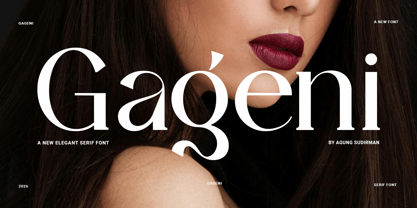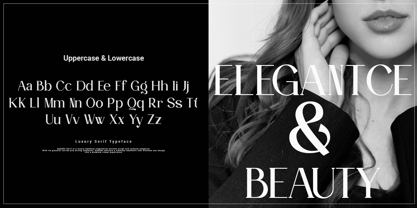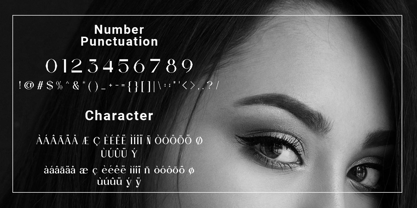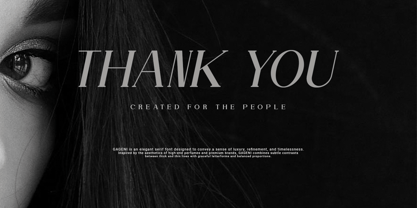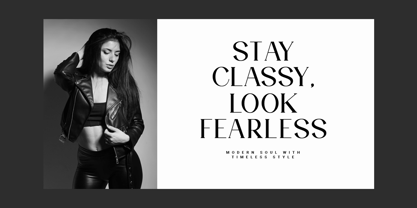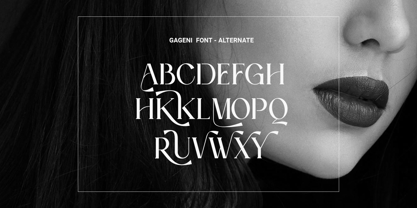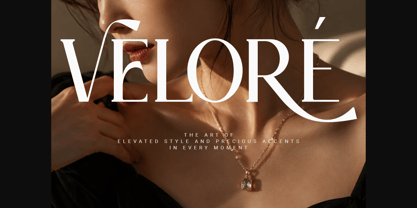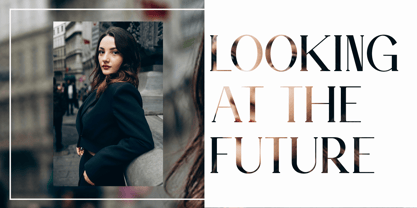
Gageni
by Agung Sudirman
The Gageni Font Family was designed by Agung Sudirman and published by Agung Sudirman. Gageni contains 2 styles and family package options. More about this family
Gageni Serif is a modern luxury display typeface crafted with a perfect balance between timeless elegance and contemporary sophistication, designed to deliver a strong visual identity for creative projects that demand beauty, refinement, and exclusivity. Inspired by classic serif traditions and modern editorial aesthetics, Gageni Serif combines graceful curves, sharp contrast strokes, stylish ligatures, and carefully crafted letterforms that create a premium and fashionable appearance in every composition. This typeface is created for designers, branding specialists, fashion creators, and visual artists who want to build an elegant atmosphere while maintaining readability and artistic character. Every letter in Gageni Serif reflects confidence, beauty, and professionalism, making it suitable for luxury branding, logo design, magazine headlines, fashion editorials, cosmetic packaging, jewelry advertisements, social media content, wedding invitations, photography watermarks, boutique identities, and premium marketing materials.
The uniqueness of Gageni Serif lies in its sophisticated details and harmonious proportions that allow each character to feel refined yet expressive. The font features elegant uppercase and lowercase styles, modern serif structures, smooth curves, and aesthetic ligatures that add personality and exclusivity to the typography. These characteristics make the font highly versatile for both minimal and decorative layouts, allowing designers to create visually appealing compositions with ease. Gageni Serif is not only a typeface but also a visual statement that communicates luxury, confidence, femininity, and modern creativity. Its elegant presence can transform ordinary text into an artistic centerpiece that captures attention and enhances brand value instantly.
Designed with precision and attention to detail, Gageni Serif supports multilingual characters and includes beautifully balanced spacing and kerning to ensure professional typography results across digital and print media. The font performs beautifully in large display sizes for headlines and titles while still maintaining clarity and sophistication in smaller applications. Whether used for fashion campaigns, luxury product branding, beauty industry promotions, restaurant identities, hotel branding, or modern lifestyle designs, Gageni Serif delivers a timeless visual impression that feels classy, fashionable, and memorable.
Gageni Serif embraces the beauty of modern typography trends while preserving the classic essence of serif letterforms, making it ideal for contemporary creative industries that seek elegance and uniqueness. The combination of stylish ligatures, fashionable letter shapes, and premium aesthetics allows designers to create stunning visual experiences that stand out in today’s competitive design world. With its luxurious personality, artistic craftsmanship, and versatile functionality, Gageni Serif becomes more than just a font—it becomes a symbol of style, sophistication, and timeless design excellence for creators who value beauty and professional quality in every detail.